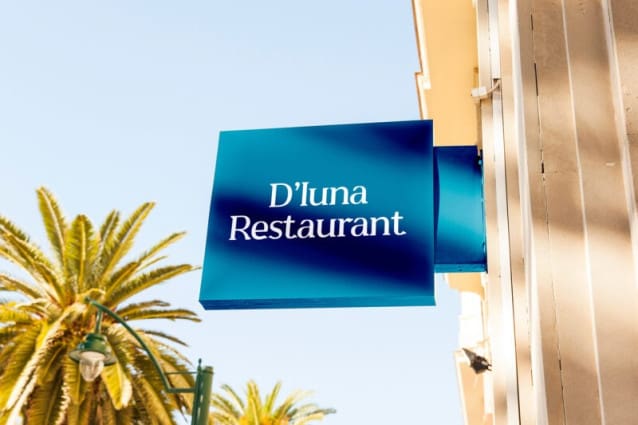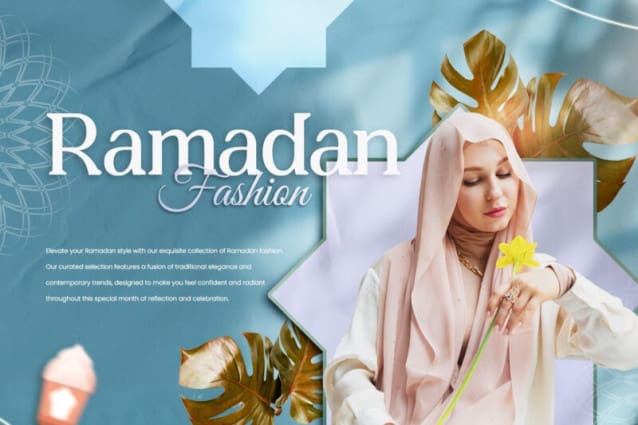
Sandoera Font
Sandoera Font is a remarkably elegant serif font that exudes timeless sophistication and grace. Its beautifully crafted letterforms feature delicate, elongated serifs that effortlessly convey a sense of refinement and luxury. With a perfect balance between thin and thick strokes, Sandoera Font achieves a harmonious and legible appearance, making it an ideal choice for conveying a sense of sophistication and tradition in various design projects, from high-end branding to elegant invitations and editorial layouts. This typeface’s inherent grace and versatility make it a standout choice for those seeking to add a touch of timeless elegance to their visual creations.